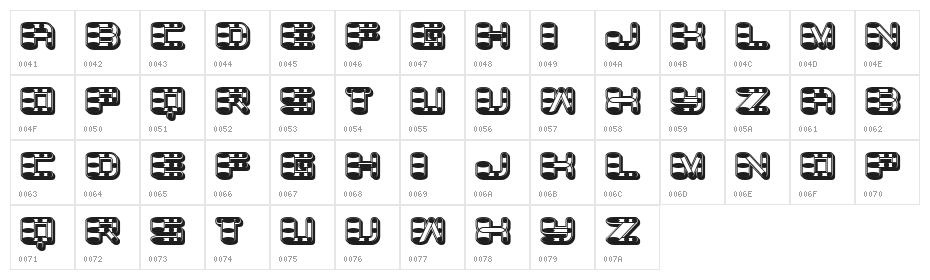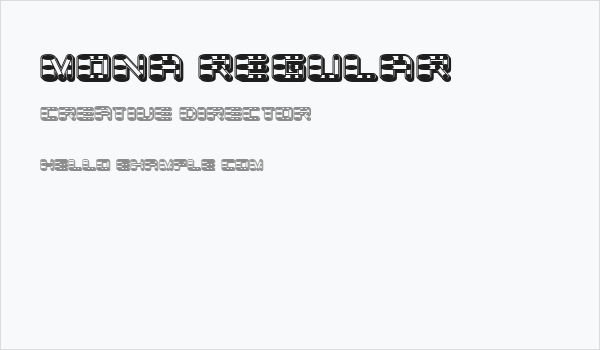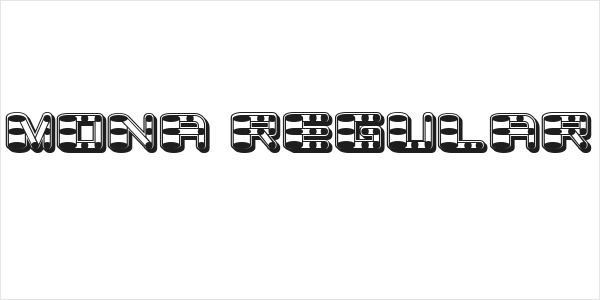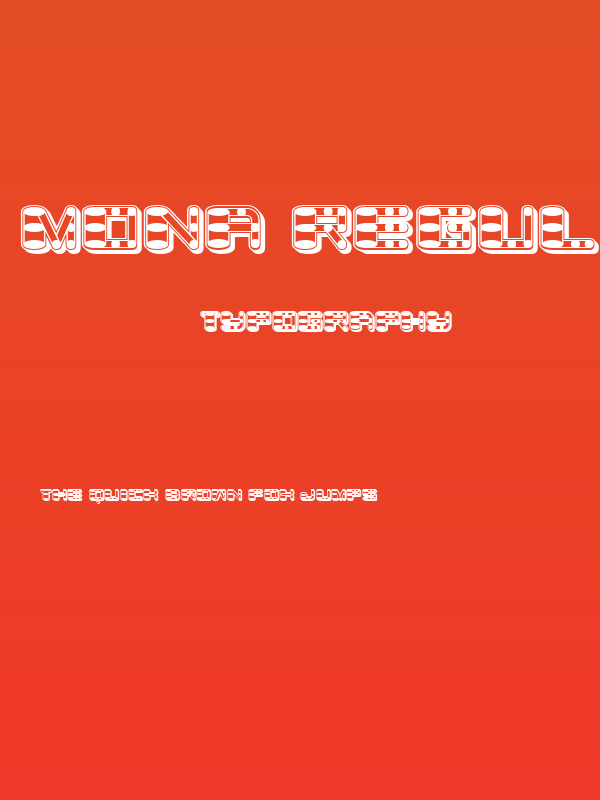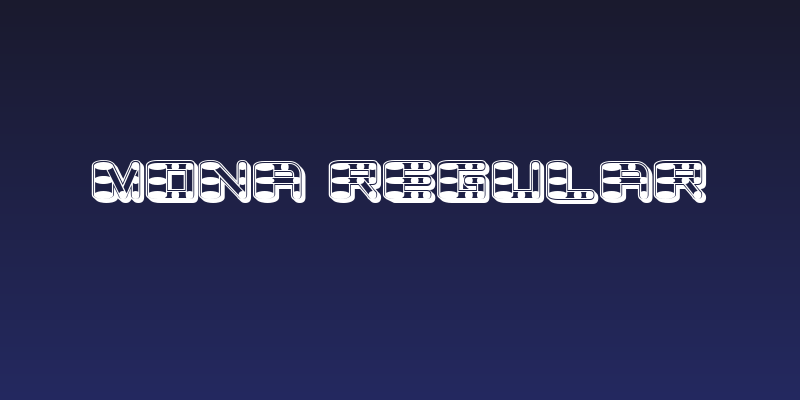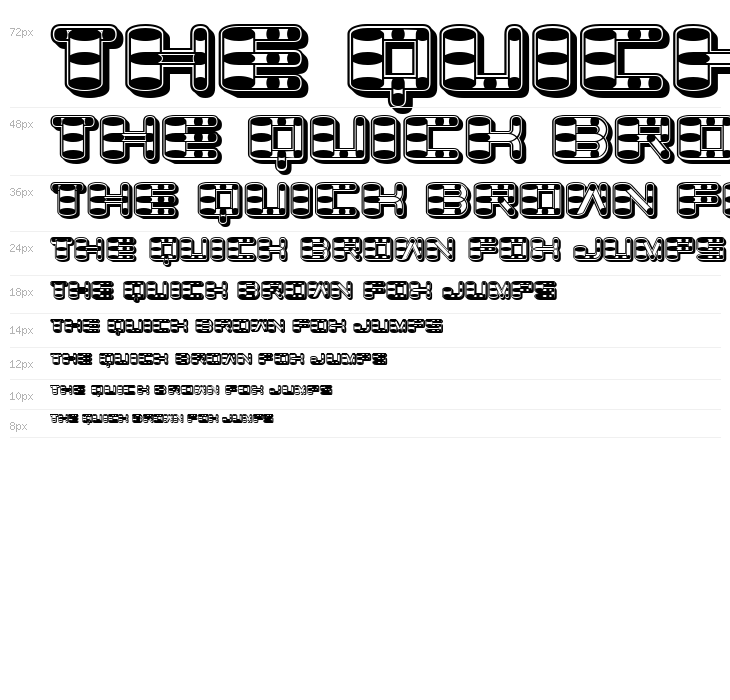
Mona Regular Font
Mona Regular Description
This font features a bold, decorative style with a unique pattern inside each character, resembling a checkerboard or maze-like design. The letters are outlined with a thick black border, adding to their bold appearance. The style is highly geometric, with sharp angles and clean lines, creating a modern and eye-catching look. The uppercase letters are uniform in height, contributing to a cohesive and structured appearance. This font is ideal for projects that require a strong visual impact and a contemporary aesthetic.
| Proposed Projects | Ideal for posters, logos, and branding materials that require a modern and striking visual style. |